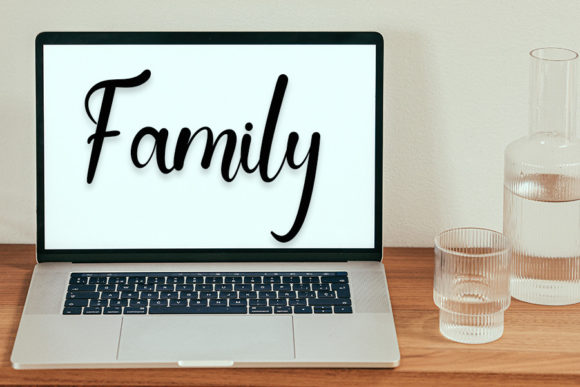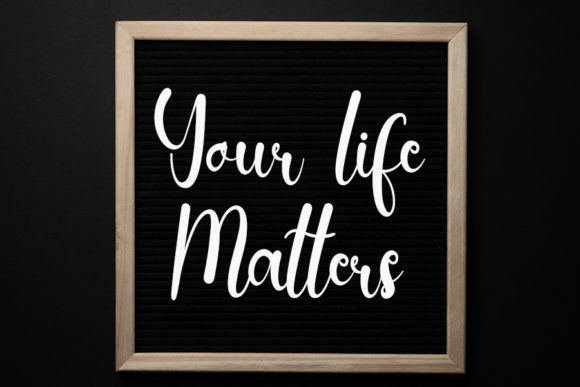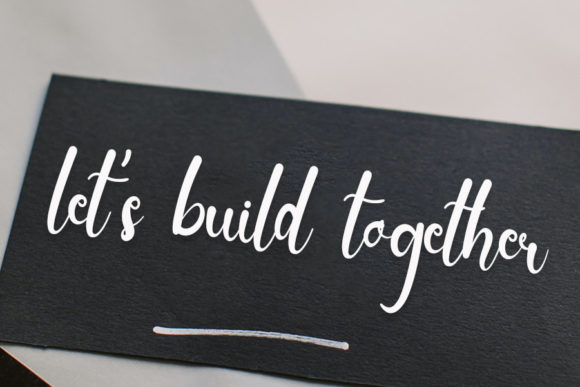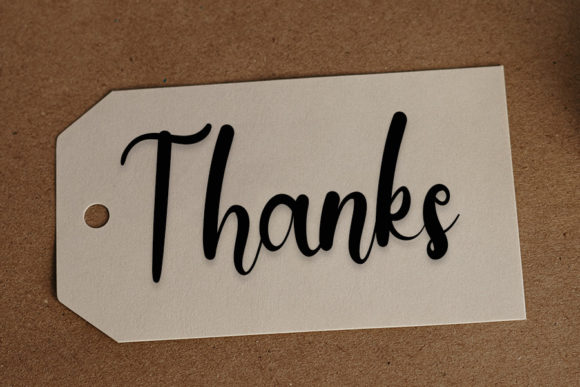
The Perfect Script: Introducing Acting Style Font
As a designer, there’s nothing quite like the thrill of seeing your creative vision come to life. You spend hours pouring over fonts, colors, and layouts, trying to craft the perfect narrative for your project. And then, it happens – you stumble upon that one font that makes everything click into place. For many of us, that font is Acting Style Font, a friendly handwritten font that’s as charming as it is versatile.
Acting Style Font is more than just a pretty face – it’s a carefully crafted tool designed to add a touch of elegance and sophistication to any design project. With its classy calligraphic influences and fresh, contemporary feel, it’s no wonder this font has become a favorite among designers. And with its PUA encoding, you’ll have access to all the amazing glyphs and ligatures you need to bring your vision to life.
Key Features of Acting Style Font
- Unique Characteristics: Acting Style Font features a unique, hand-drawn design with subtle brush strokes and elegant letterforms, making it perfect for titles, headings, and other display typography.
- Character Set: Acting Style Font includes a wide range of characters, including uppercase and lowercase letters, numerals, punctuation marks, and special characters, making it suitable for use in a variety of languages.
- Kerning and Ligatures: Acting Style Font includes carefully crafted kerning pairs and ligatures, ensuring that letter combinations appear smooth and even, and adding to the overall aesthetic appeal of the font.
Review: Acting Style Font
Overall, I have mixed feelings about the Acting Style Font. While it has some great features, it falls short in other areas.
- Creative and unique approach to typography, making it perfect for titles and headings
- Lots of expressive and emotive characters, which can be great for conveying tone and mood in text
- The font is highly customizable, allowing designers to tweak its look and feel to suit their needs
- Some characters may be difficult to read, especially at smaller font sizes
- The font can be quite busy, making it hard to read for extended periods of time
- The lack of consistency in character design can make the font feel disjointed and unpolished
While the Acting Style Font has some great ideas, it ultimately feels like a work in progress. With some refinement and attention to detail, it could be a truly unique and effective font. As it stands, it’s best suited for short-term use or as an accent font.
For maximum impact, use the Acting Style Font in bold, italics, or all caps to emphasize key points. Experiment with different font sizes and colors to create visual interest. Use the font to highlight quotes, titles, or key phrases to draw attention to important information.
The Acting Style Font is perfect for:
- Movie and theater posters
- Book covers and titles
- Marketing and advertising materials